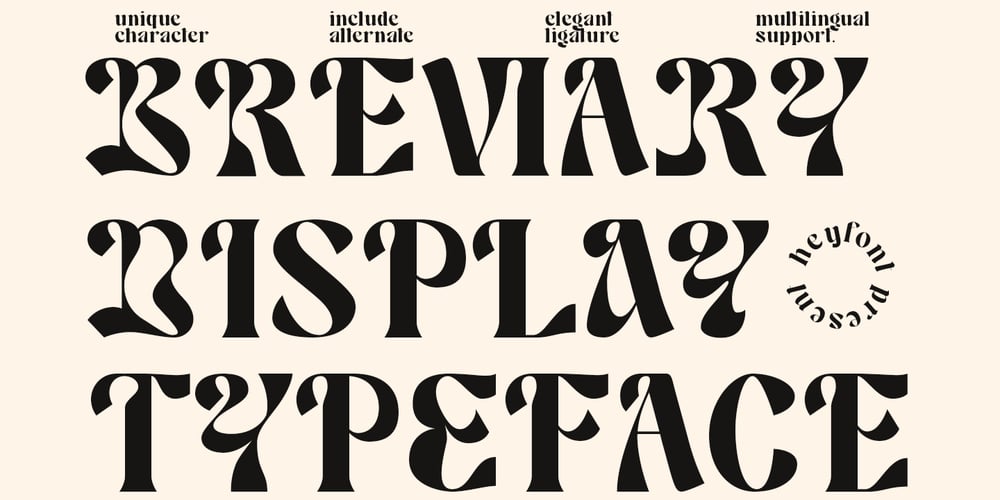
Breviary Font Family was designed by Asep Rendy and published by Heyfonts. Breviary contains 1 styles and family package options. Breviary – Display Typeface “UNIQUE serif modern font” likely refers to a typeface that combines elements of traditional serif design with contemporary and distinctive features. Serif fonts have small lines or strokes attached to the ends of characters, which can contribute to a more formal or traditional appearance. The term “modern” in this context typically implies a contemporary or updated style. Here’s an explanation of the characteristics and significance of a UNIQUE serif modern font:-Serif Elements: Serifs are the small lines or strokes at the ends of characters, and they are a hallmark of traditional typography. In a UNIQUE serif modern font, these serif elements are likely to be present but may have a distinctive shape or style that sets them apart from more conventional serif fonts.-Contemporary Design: The “modern” aspect of the font suggests a contemporary or updated design. This may involve a departure from the more classical serif styles seen in traditional typefaces, incorporating modern design principles, cleaner lines, and a more minimalist aesthetic.-Distinctive Characters: A UNIQUE serif modern font is likely to feature characters with unique and individual design elements. This could include unconventional serifs, letter shapes, or other stylistic details that make the font stand out and contribute to its uniqueness.-Versatility: While serif fonts are often associated with formality and readability, a UNIQUE serif modern font may offer versatility suitable for a range of design applications. It could be used in both traditional and modern contexts, providing flexibility for various design projects.-Applicability to Branding: Fonts play a crucial role in branding, and a UNIQUE serif modern font could be an excellent choice for businesses or projects that want to convey a sense of tradition and reliability while maintaining a contemporary and innovative image.-Digital and Print Design: Modern serif fonts are often designed with both digital and print applications in mind. The clarity of the typeface, even at smaller sizes, and its aesthetic appeal make it suitable for a variety of design projects, from websites and apps to print materials like brochures and posters.-Attention to Detail: The uniqueness of the font may be reflected in the careful attention to detail in each character. This could include refined curves, balanced proportions, and other design elements that contribute to the overall visual appeal and readability of the font.-Available Features: Unique serif modern fonts may come with additional features, such as alternative characters, ligatures, or stylistic sets, allowing designers to customize the appearance of the text for specific design needs.